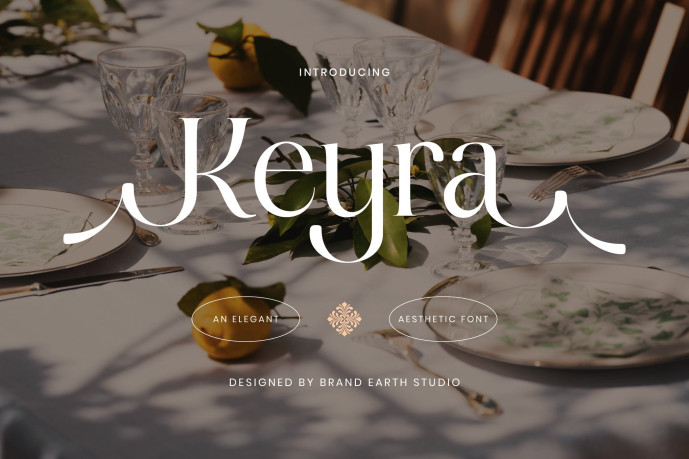
Keyra Elegant Font
Designer: BrandEarth
Keyra is an elegant serif font with refined curves and graceful swashes, blending timeless beauty with modern aesthetics. Perfect for luxury branding, editorial layouts, wedding invitations, premium packaging, and high-end logo design, Keyra offers sophistication for creative projects seeking a polished, stylish look. With its unique ligatures and delicate details, this typeface is ideal for upscale identities, fashion magazines, jewelry branding, and boutique product labels.